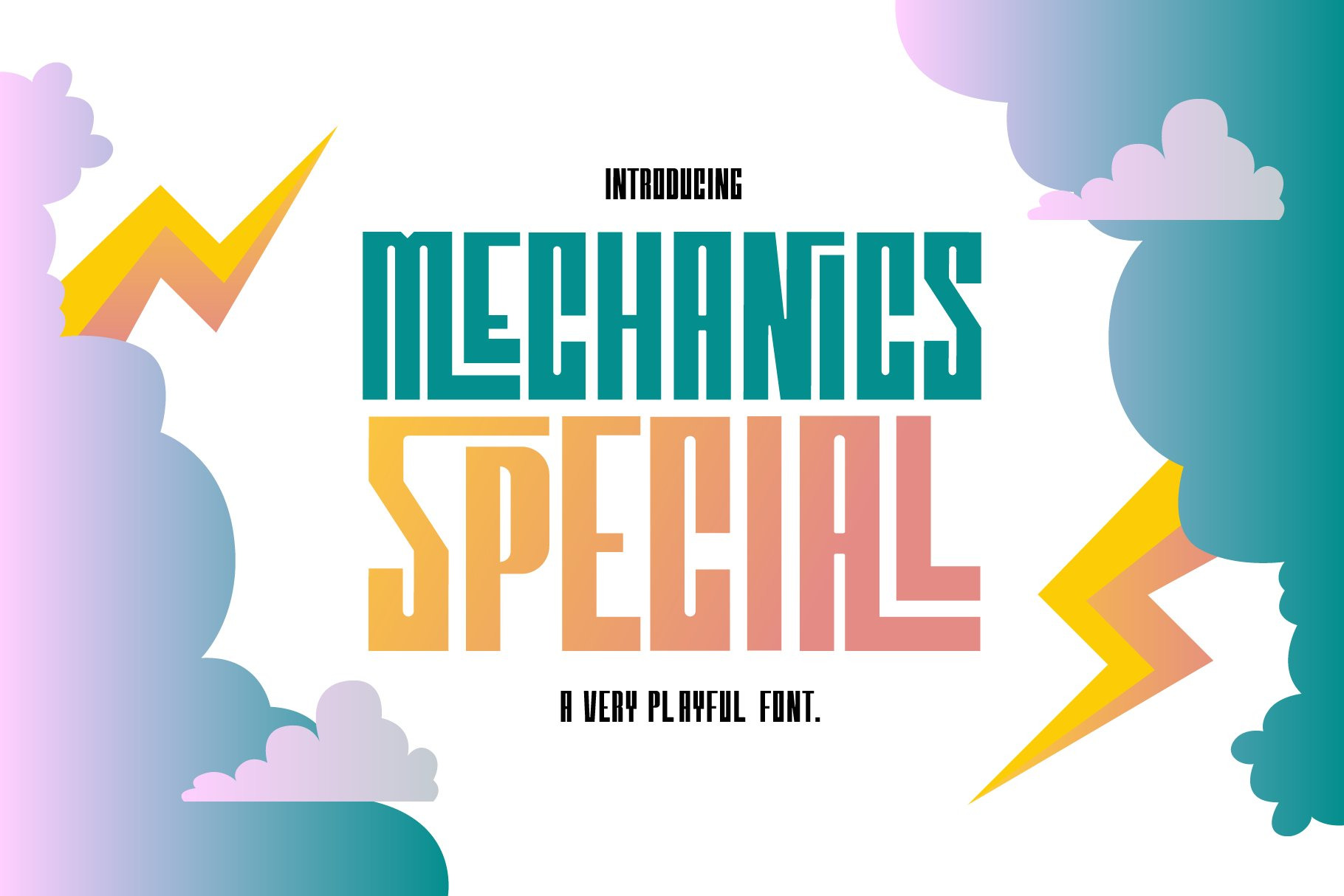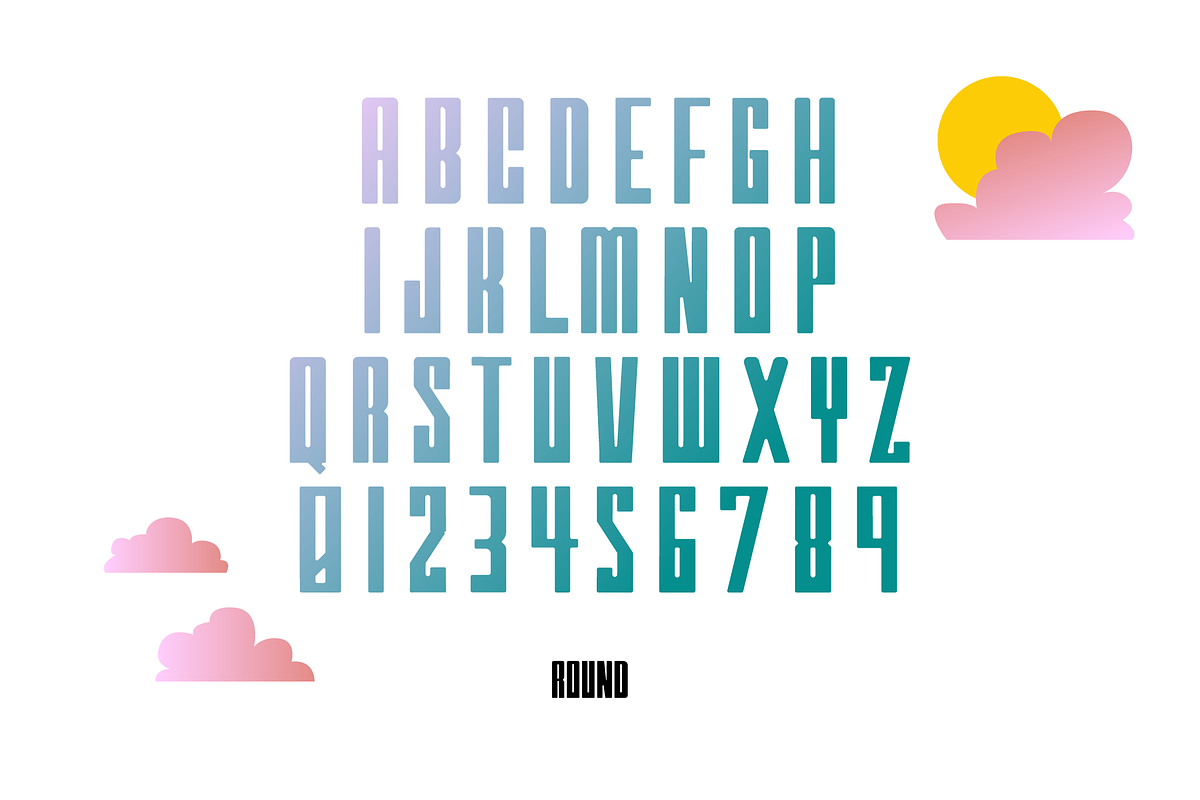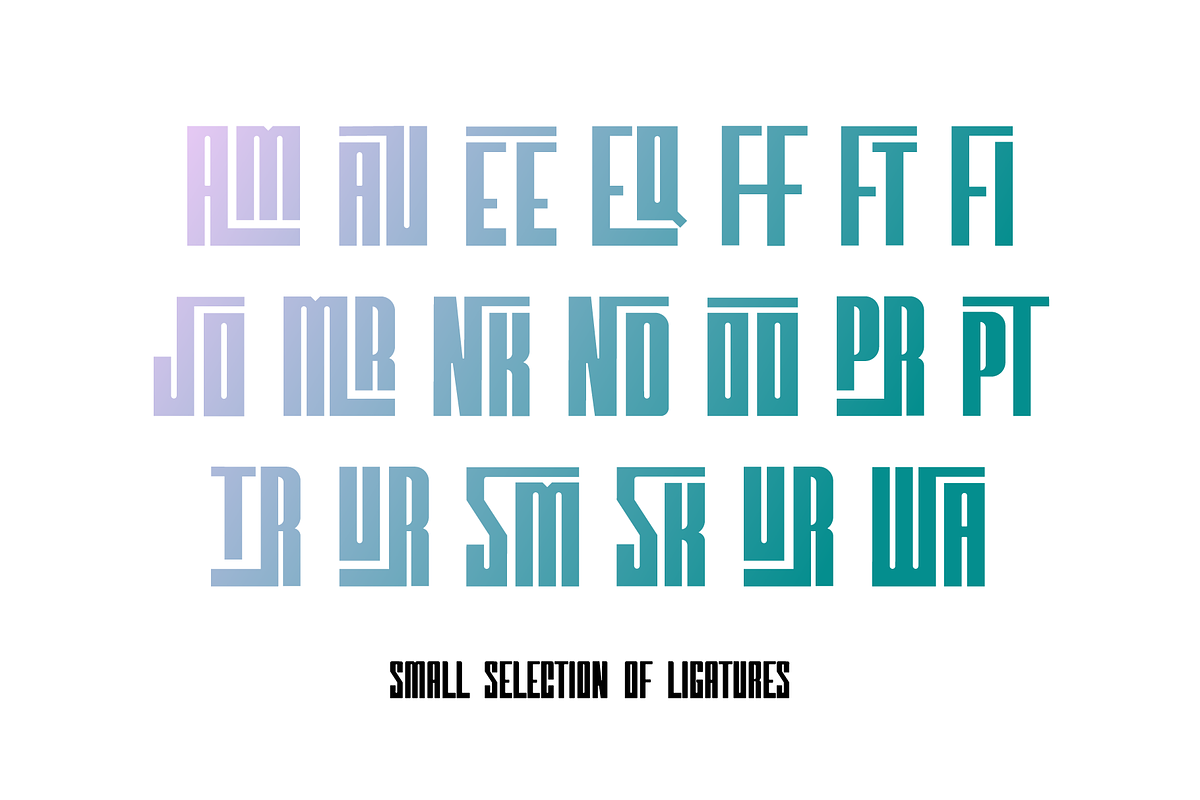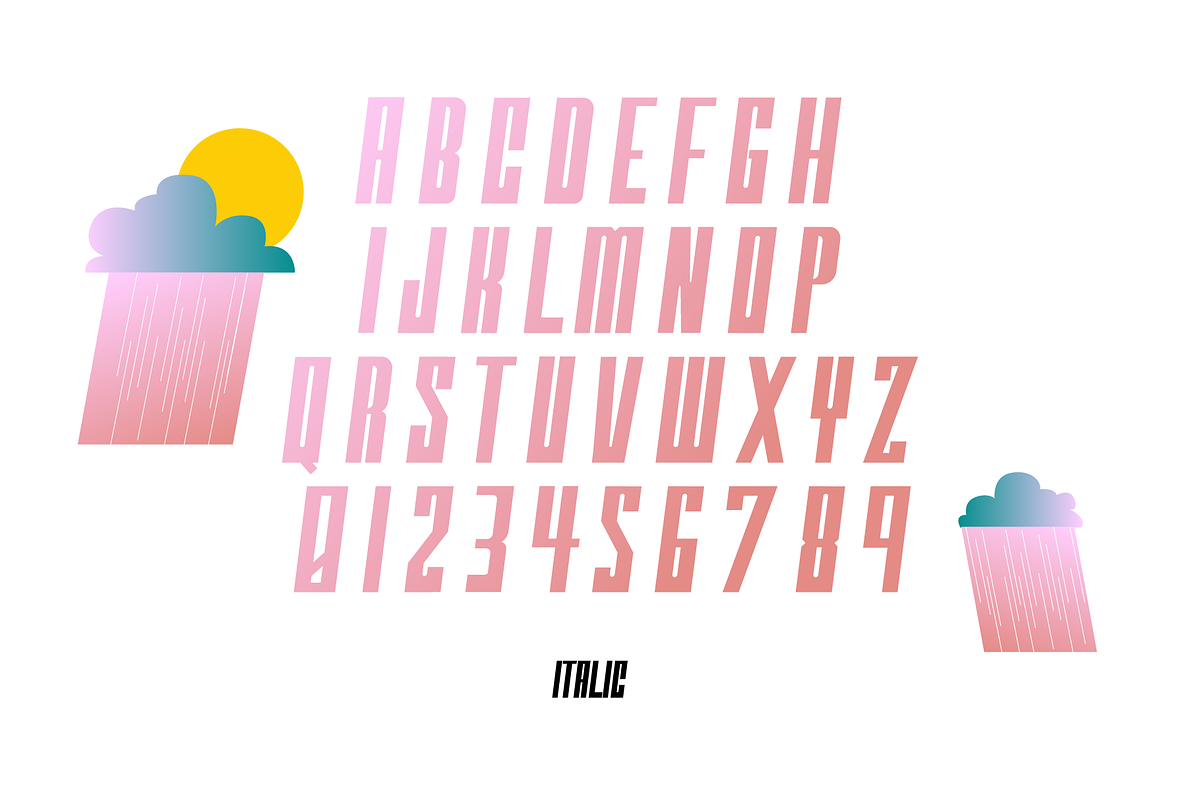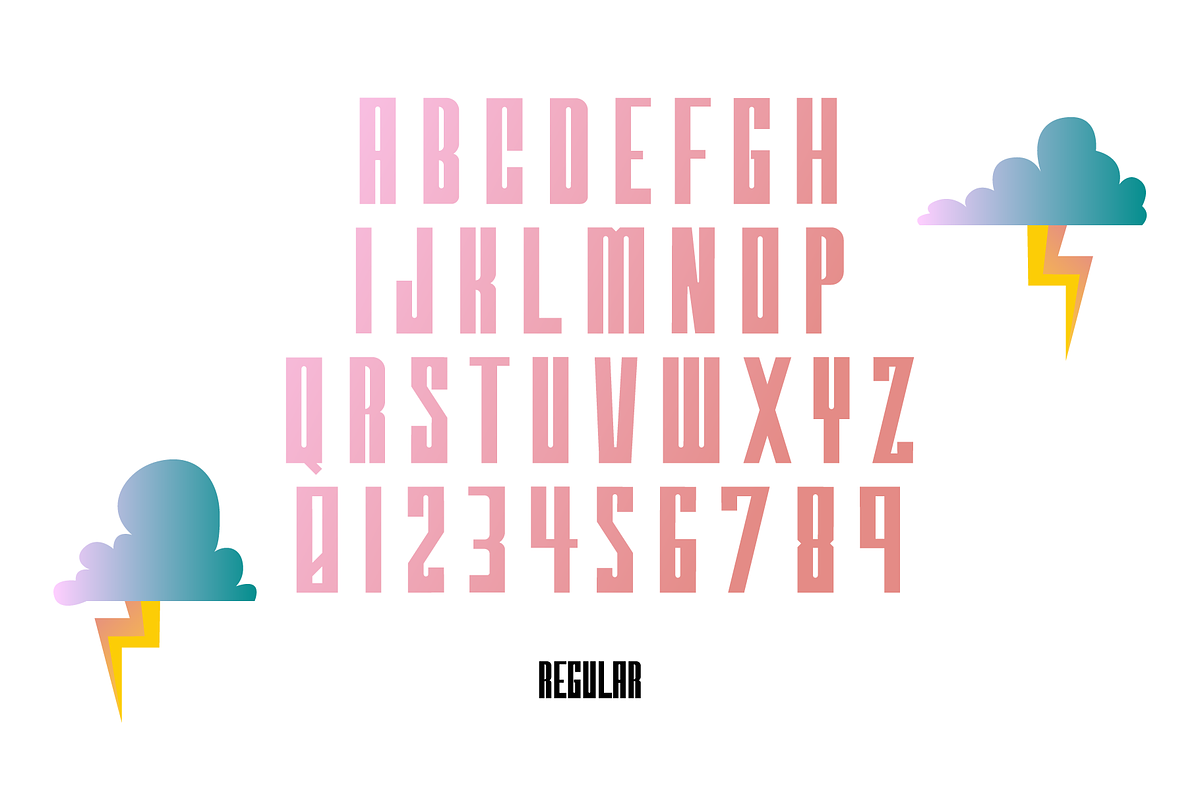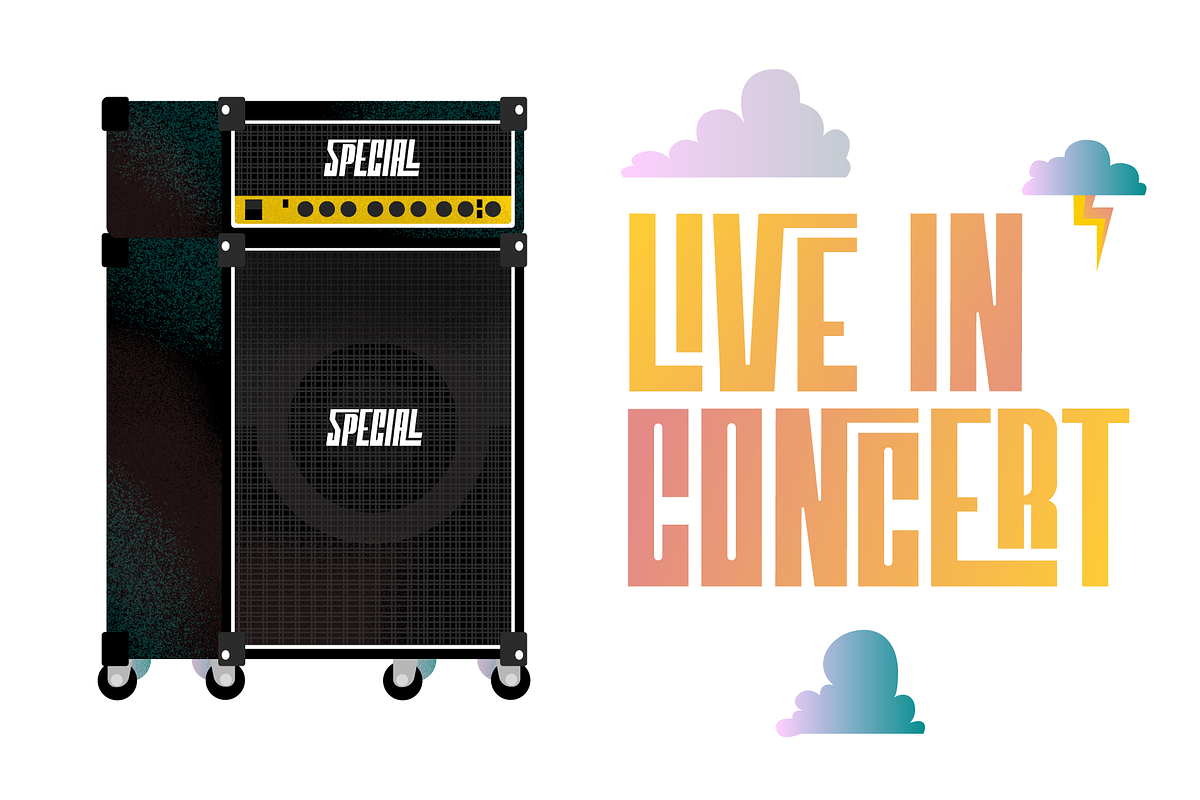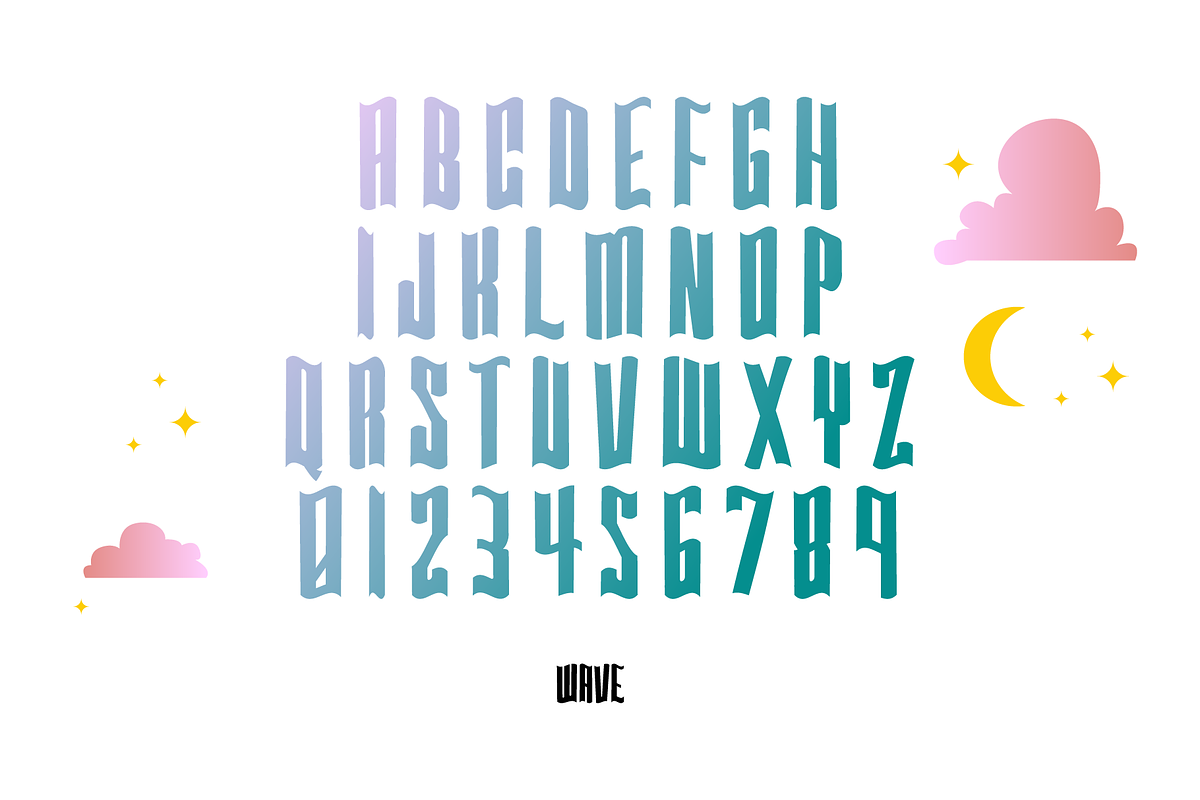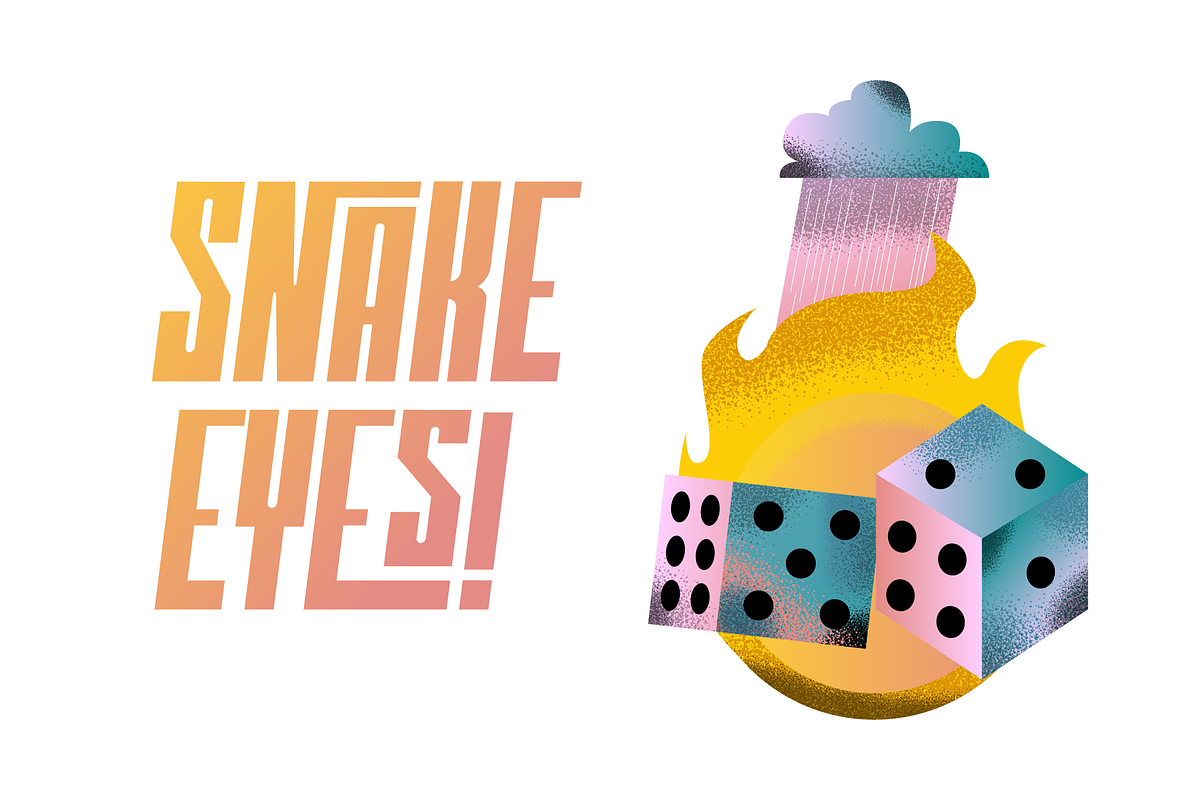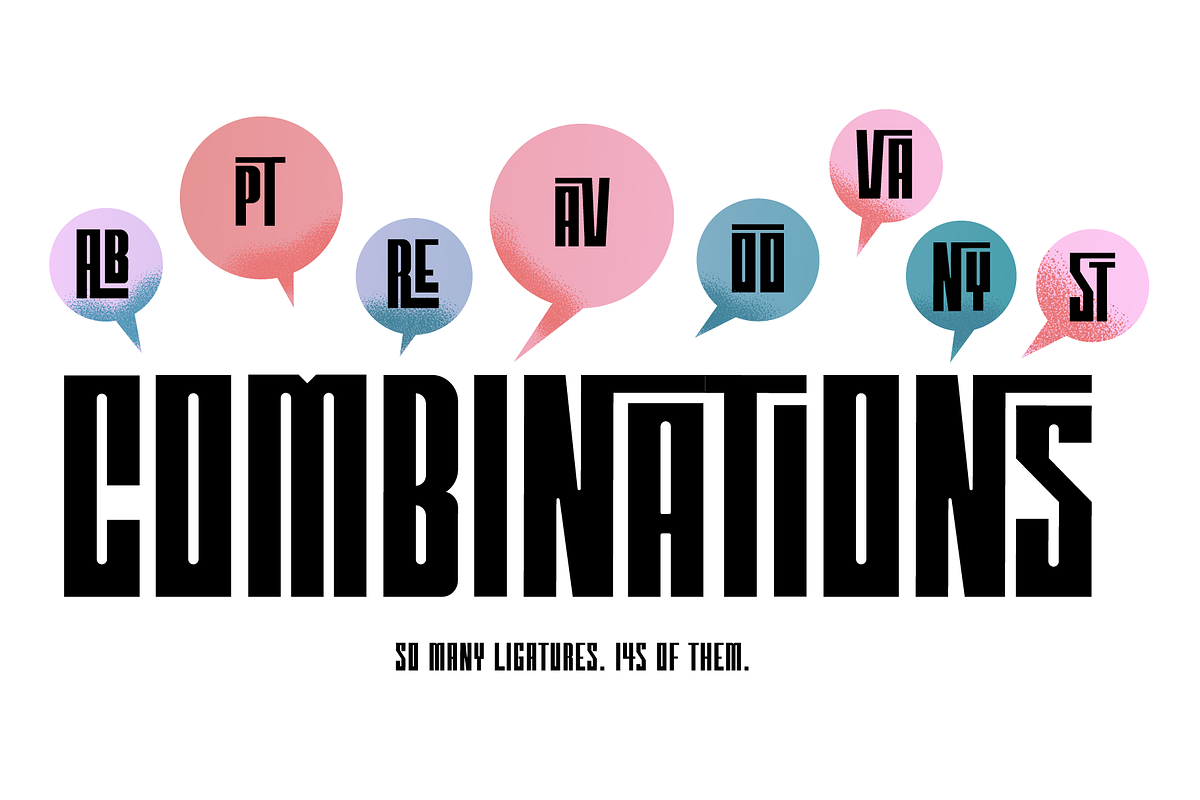
Mechanics Special Display Font
Mechanics Special is a blue collar sans serif font that gets the job done. It's a ton of fun to play with, including 145 alternate ligatures. Mechanics Special is solid on its own, but you can get super playful with the four weights: Regular, italic, round, and wave. Reminiscent of the 1970s, but with a more modern condensed bold styling, Mechanics Special is a special font.
Font Weights Included: Regular, Italic, Round, and Wave
145 Ligatures included.
Alphanumeric Characters
Full Keyboard of characters
Special characters included for pricing and menus.